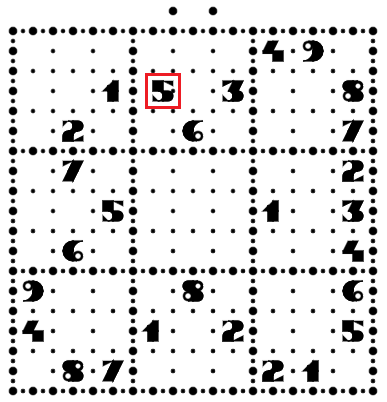
Just like the previous AT Sudoku, this is also a solvable Sudoku pattern with a single possible solution (no guessing). Dots indicate difficulty level: 1 - Easy; 2 - Moderate; 3 - Hard; 4 - Tough. If no dot is found on top of the grid, then it's not a Sudoku, so don't try to solve it ;) It's for design consistency purposes only. Make sure that the number bricks are ordered from 1 to 9. Use keyboard numbers to select each number (or set pen's mode to "cycle").
Using numbers isn't mandatory, you can use other 9 different shapes. So is the layout.
I've drawn some bold rounded letters, but they can be anything (logo, smileys, icons - you name it!). This website will help you create solvable Sudoku patterns out of your own layout design: http://www.paulspages.co.uk/sudoku/index.htm This is a 3rd Fontstruct Game Competition entry, but if I come up with another entry, I might drop one of my two Sudoku themed fontstructions, so I need your help here :). Work's in progress, so letter shapes might go over some change. Thanks!
Can you make the greek alphabet puzzles, i really want to solve the Φ one.
OMG! Sudoku-like police font! I love thoses puzzle!
But I understand it is for design purpose. We tend to make a Police Font over simple thing. But I love thoses police fonts! GREAT JOB!
I saw an offset 5 in the A puzzle...
how did this guy make the numbers?
OFFSET 3 IN "Q"
you should make all the 10^82-01 possible sudokus (base ten cuz there is balnk and 1-9)
there is actually: 10^81
True, but there are only 6,670,903,752,021,072,936,960 possible unique, solvable Sudoku grids.  Both of your calculations include puzzles that are not valid Sudoku puzzles; for example, a row consiststing of all 7's, or all 81 spots being 4's.